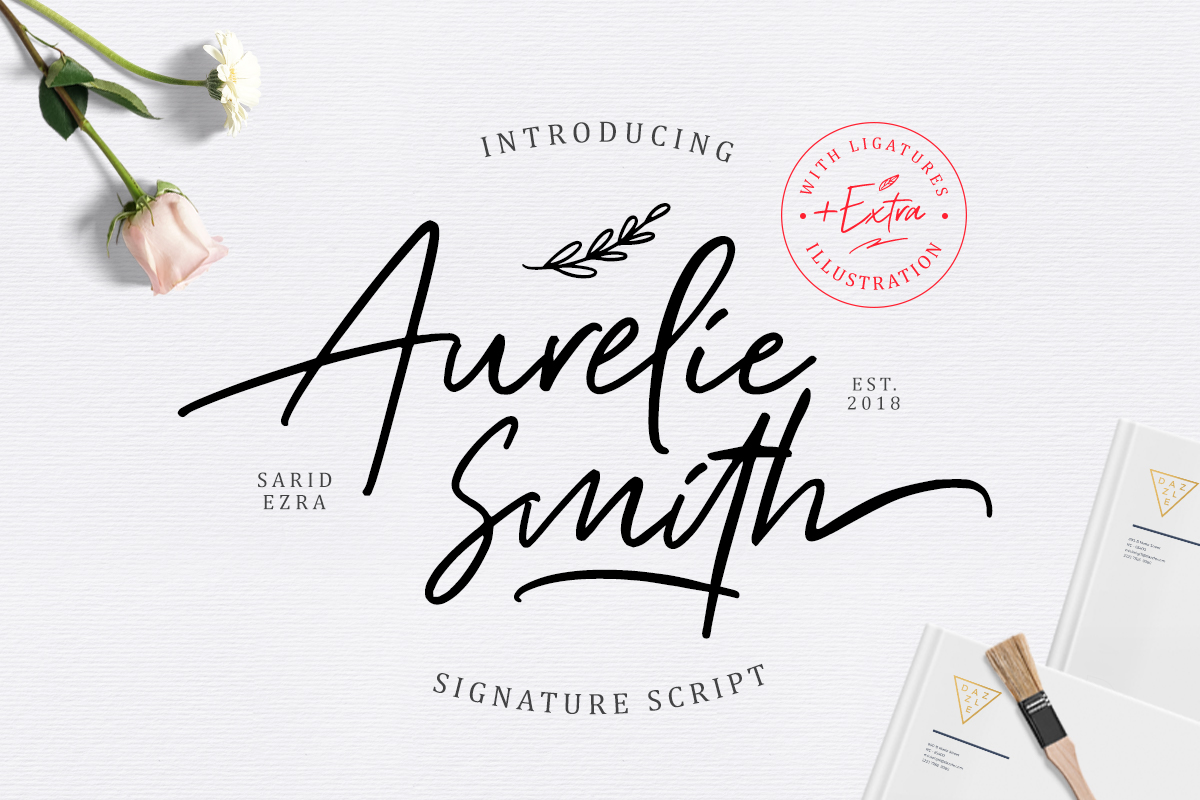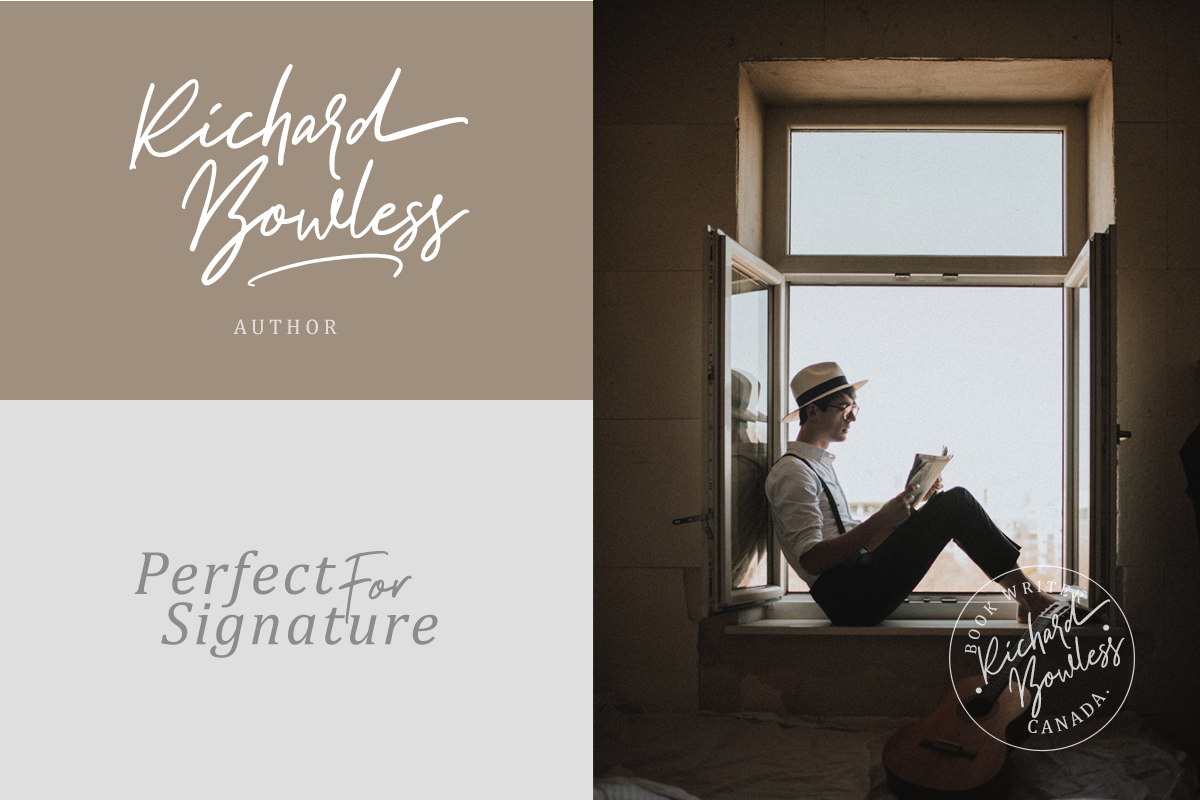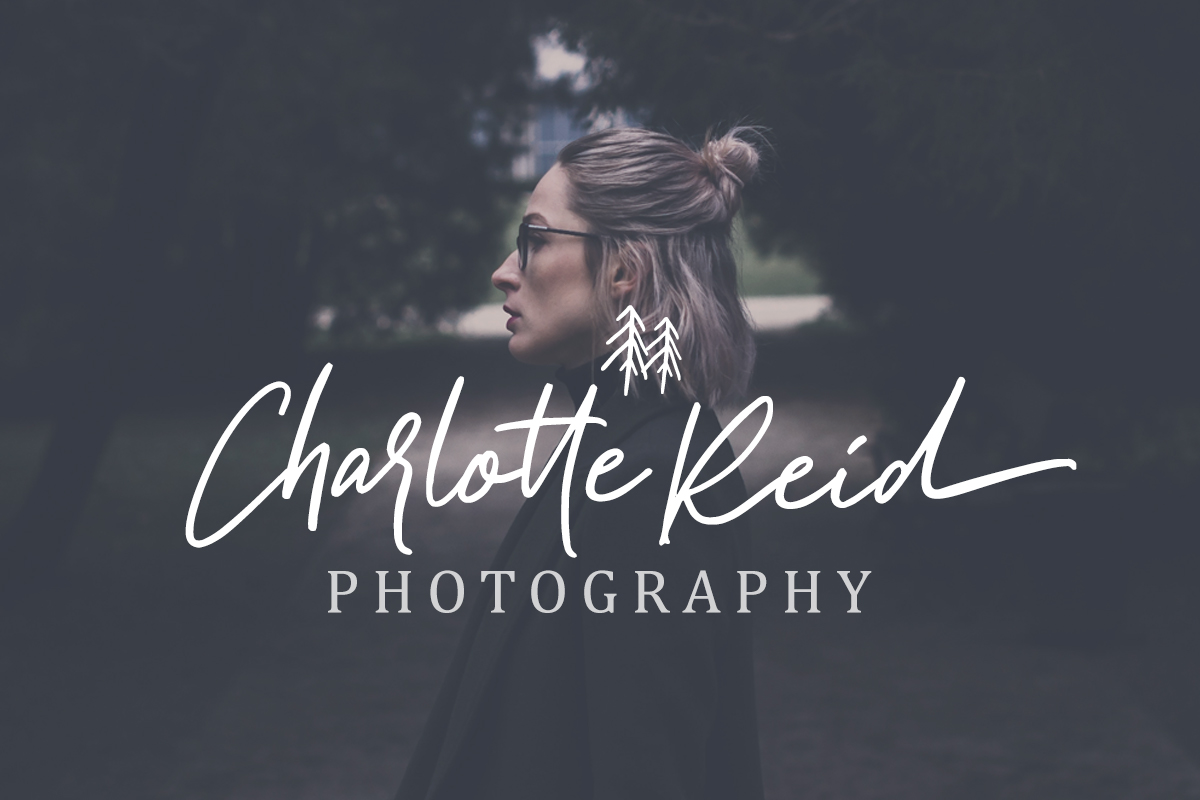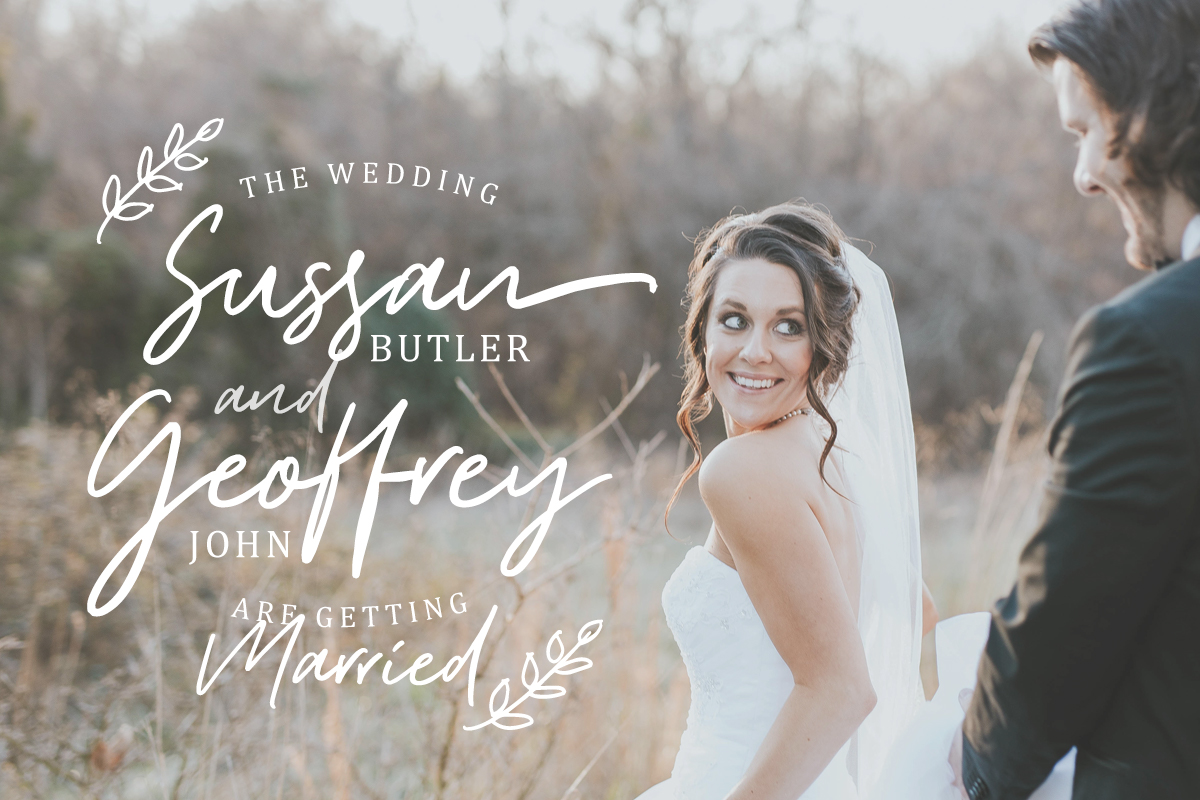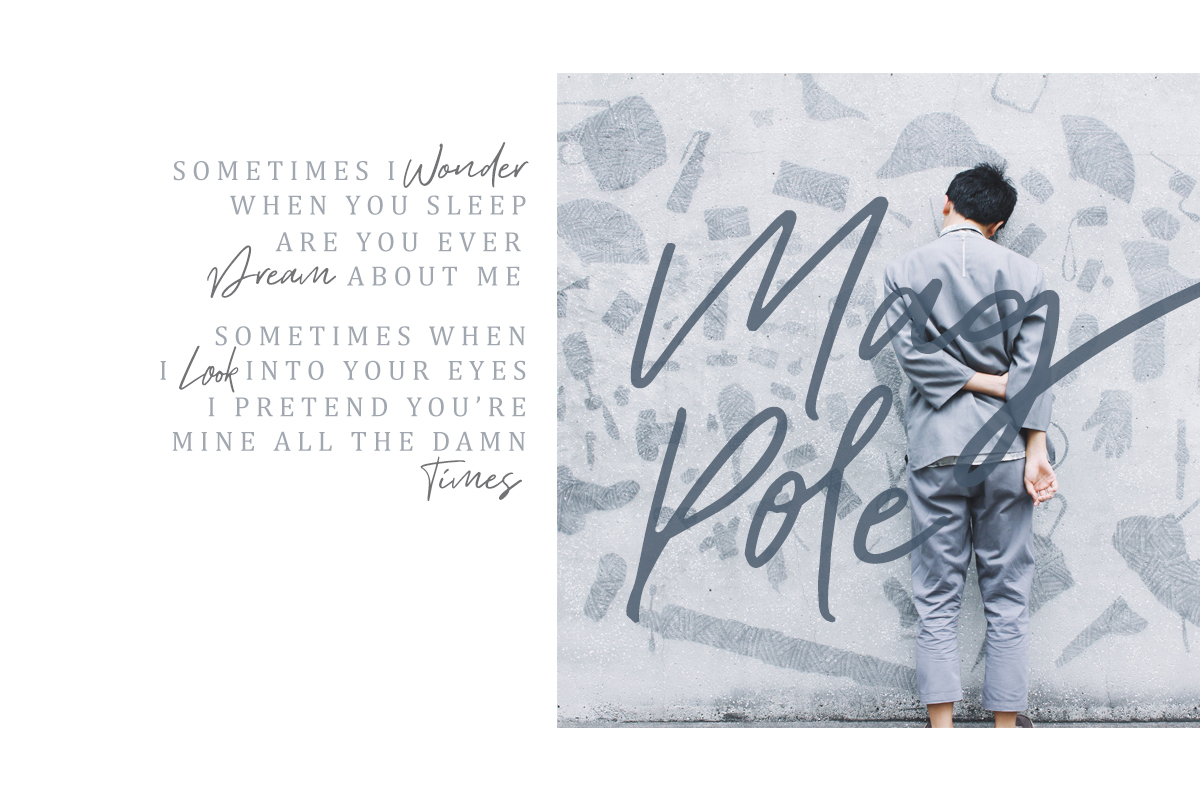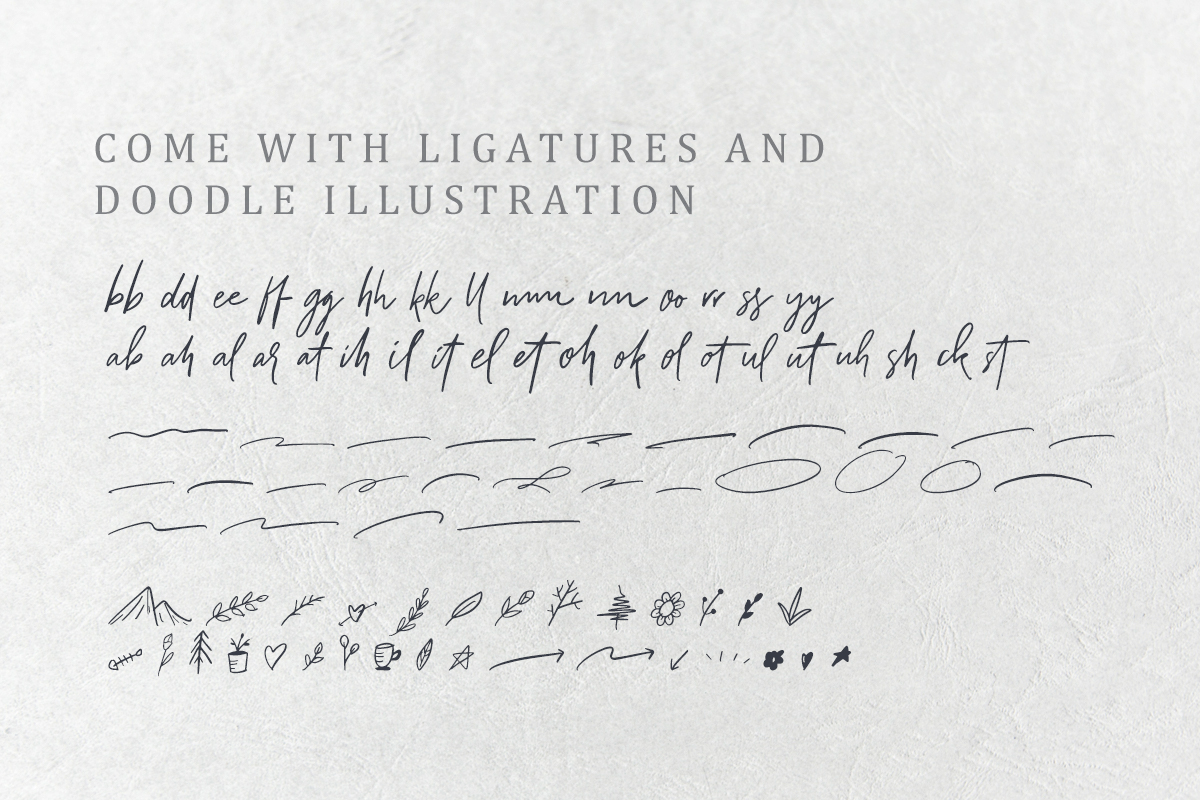
Aurelie Smith Signature Font + Extra
Swash
Aurelie Smith is fashion signature that contain lowercase, uppercase, symbol, and also support multi language. There's a lot ligatures in this font. Aurelie Smith also comes with doodle illustration that you can use to make a logo for branding, beautiful fashion design, suitable for wedding invitation, or handwritten quote. Also already PUA Encoded.